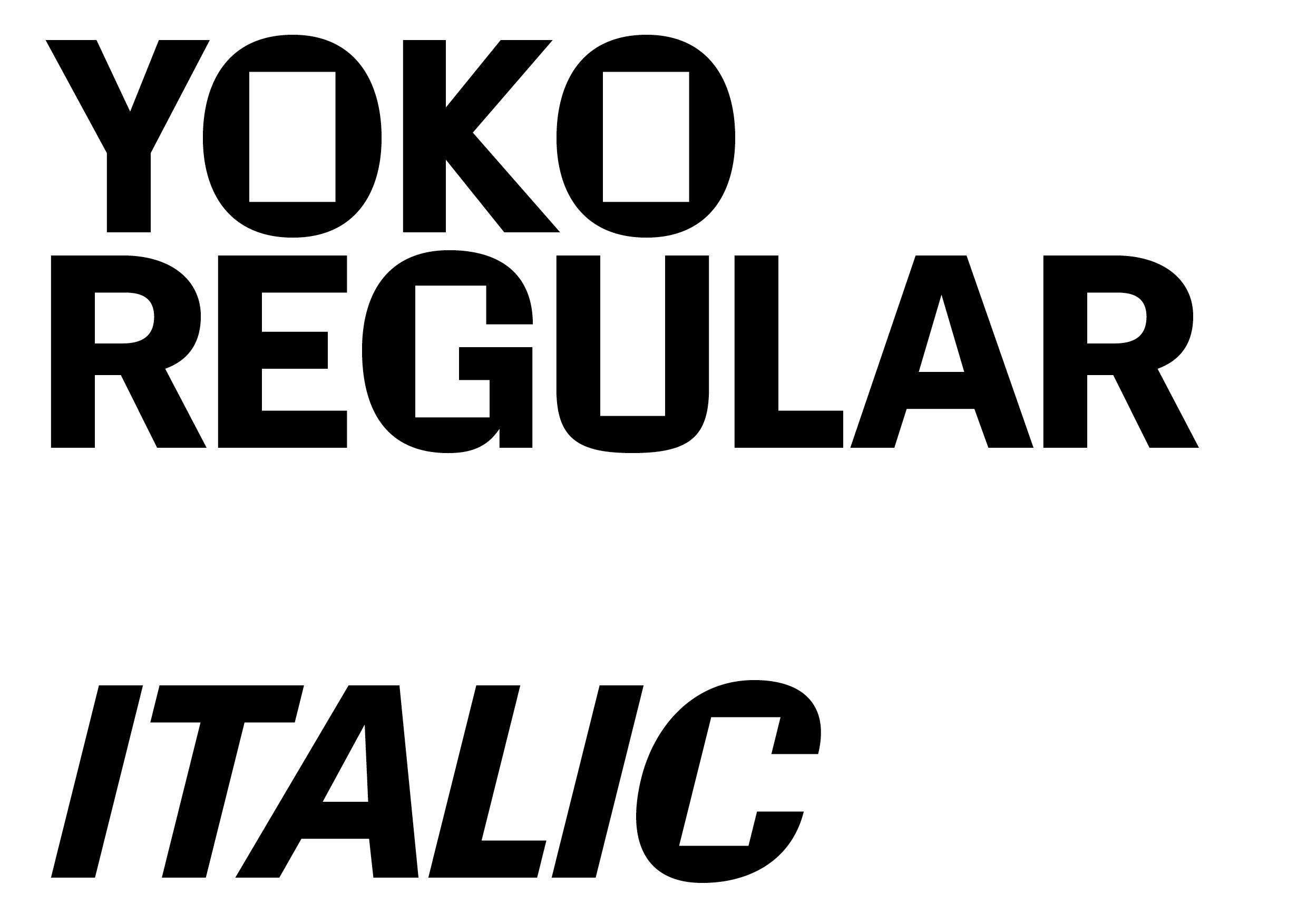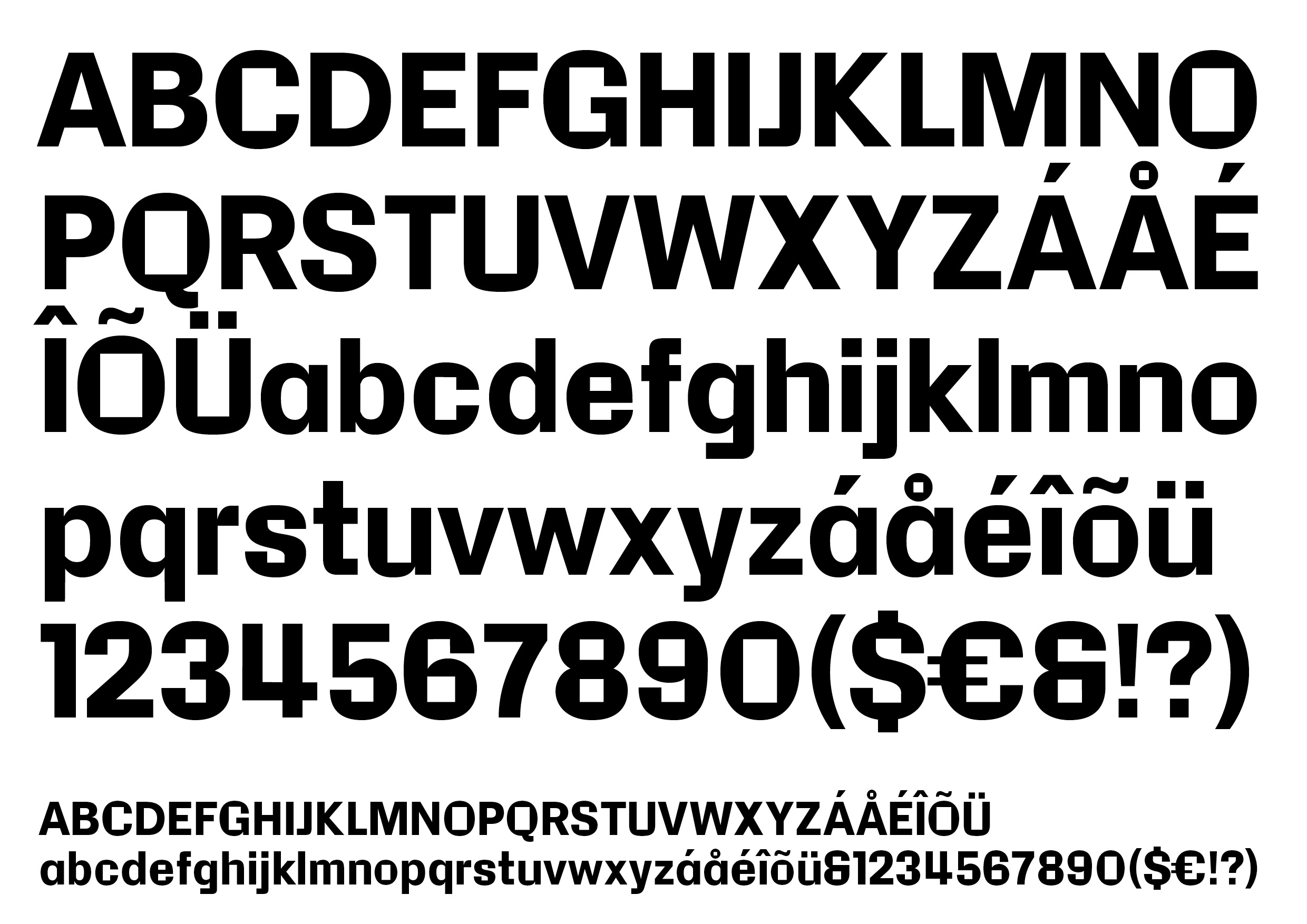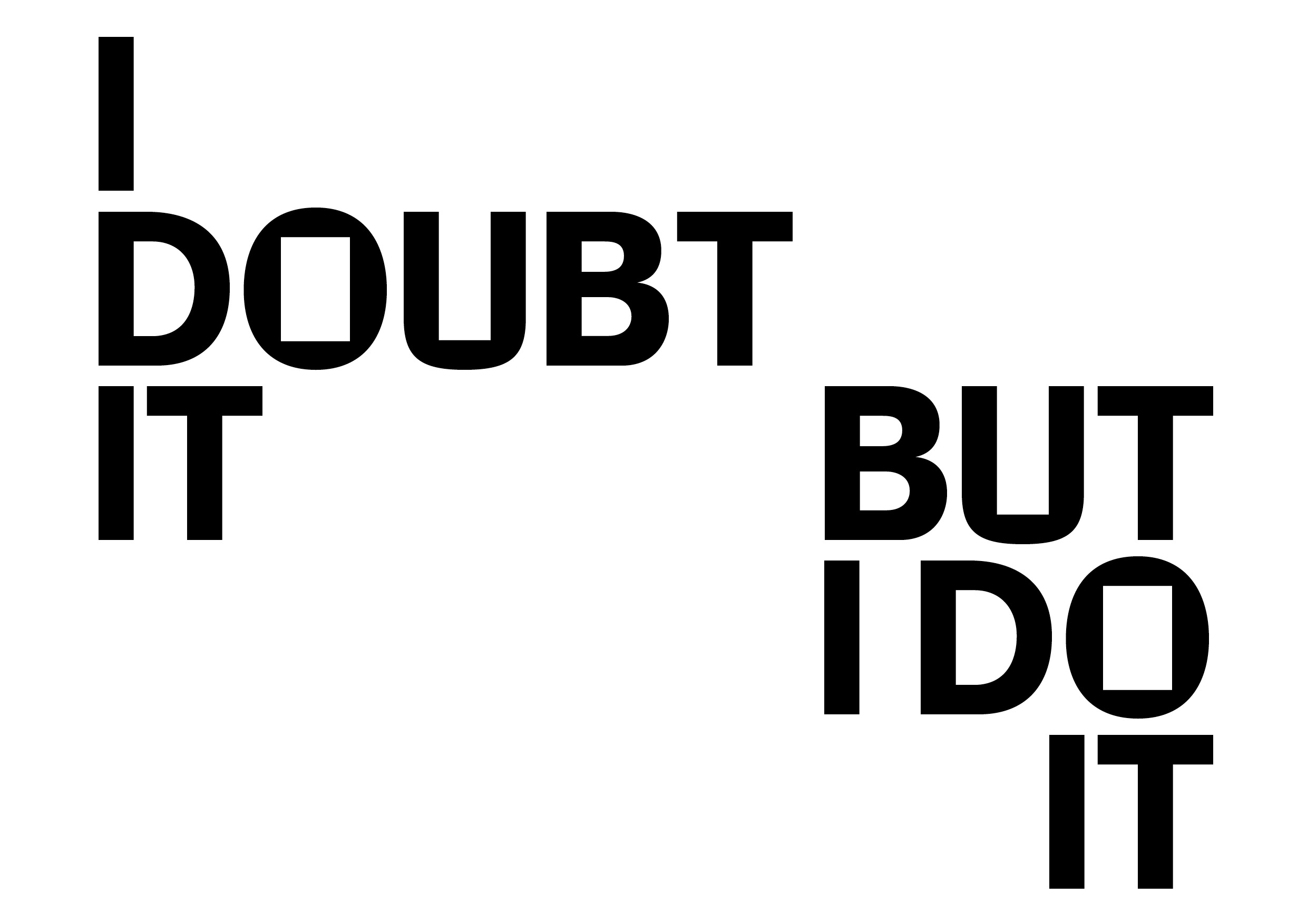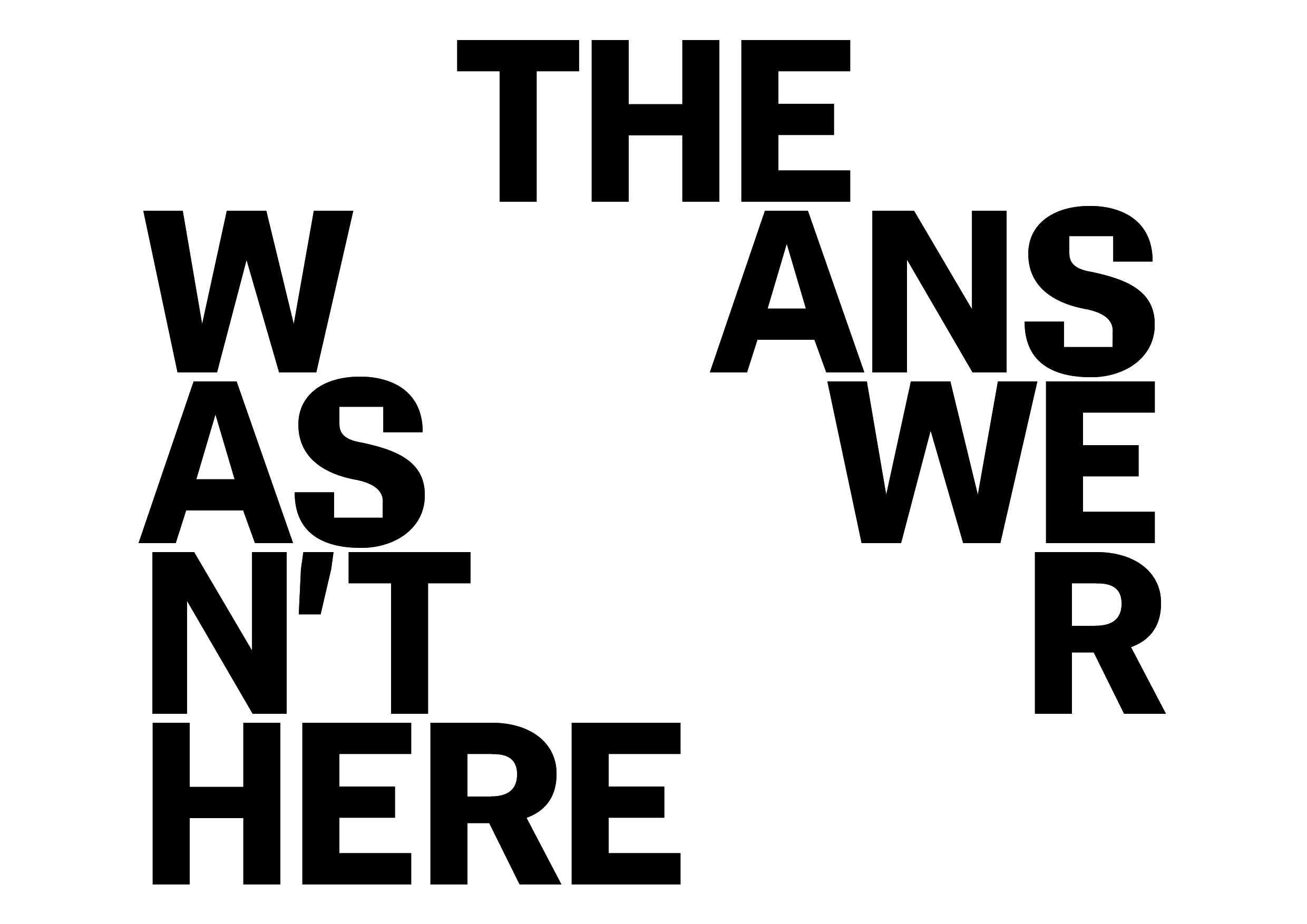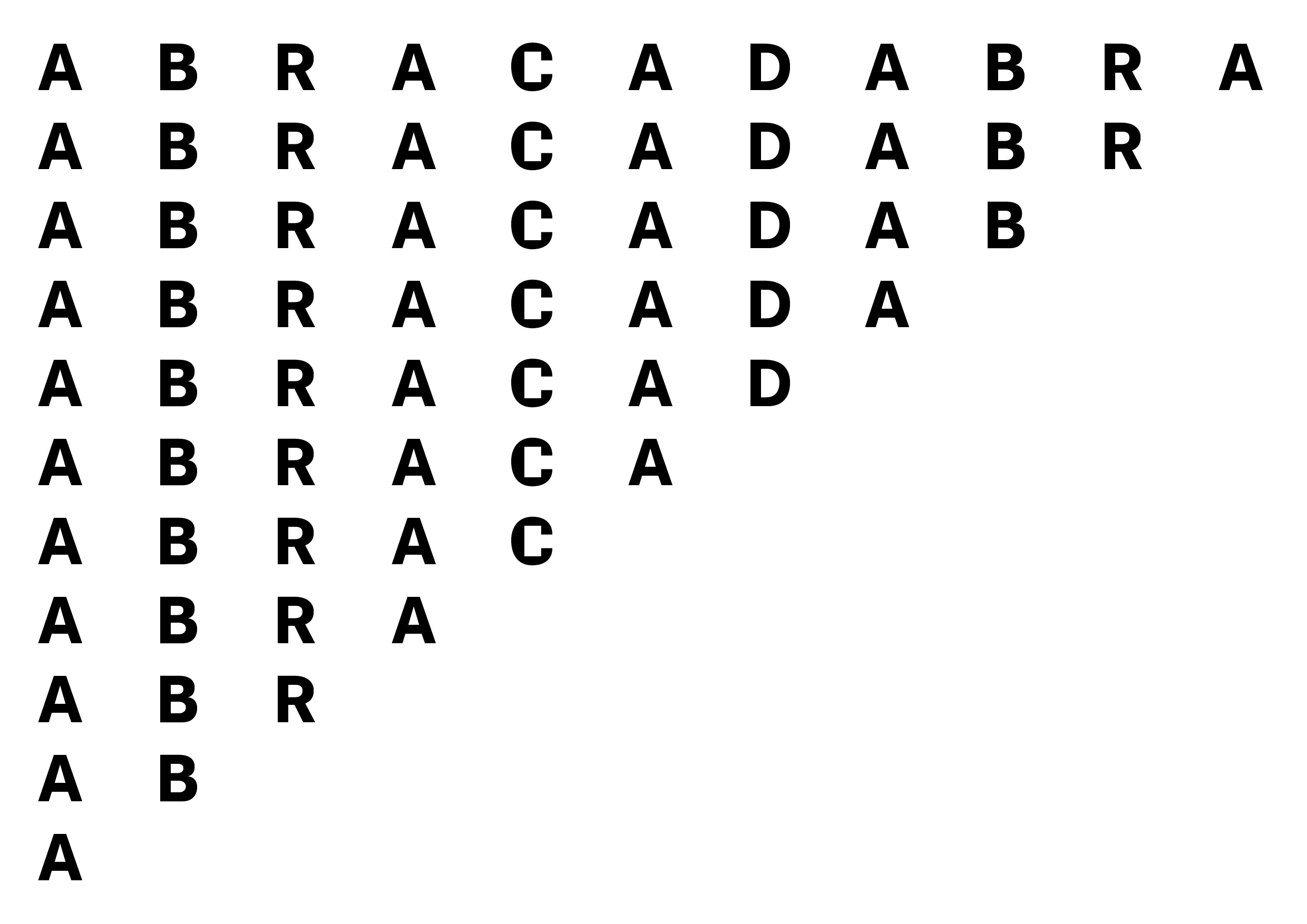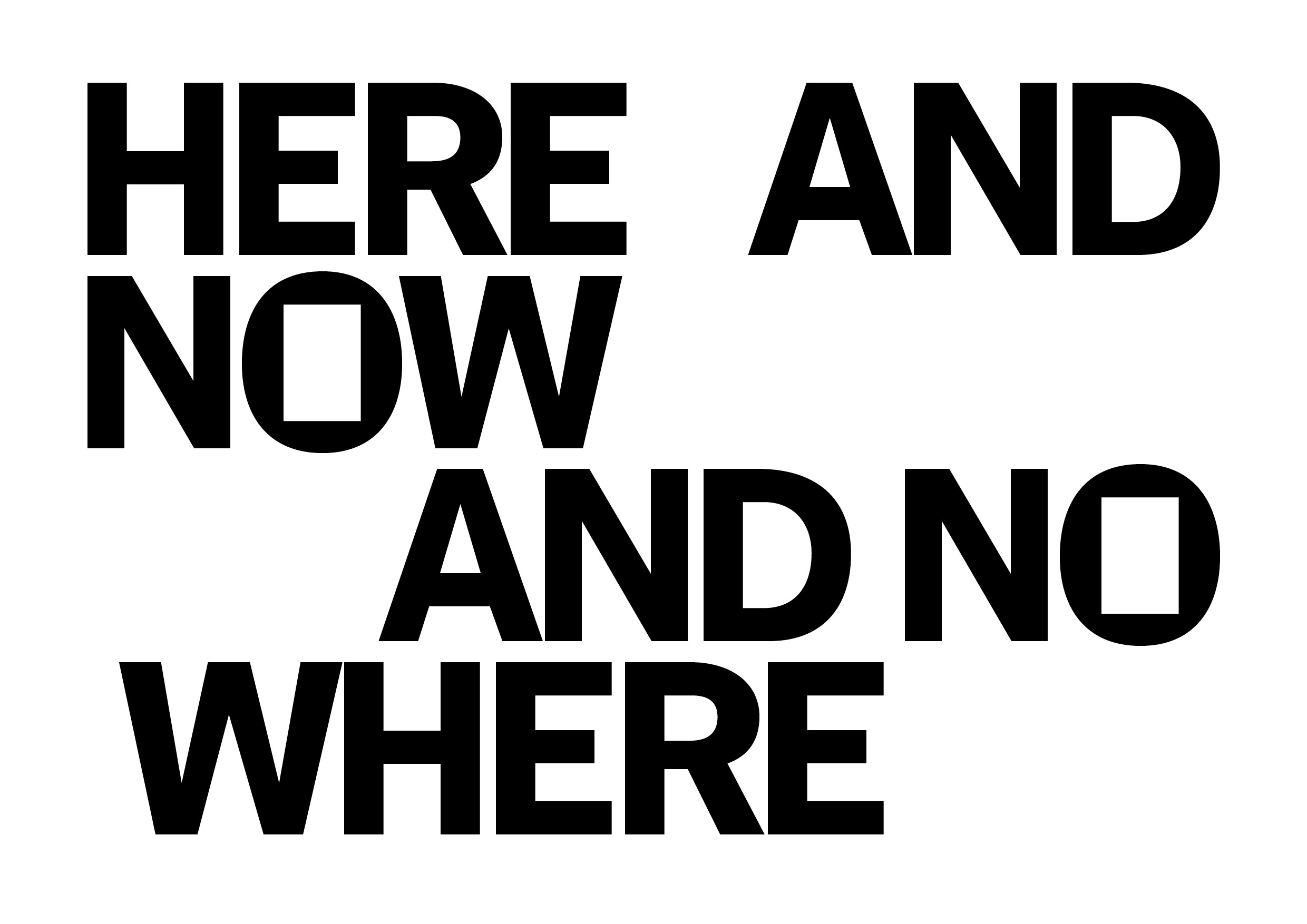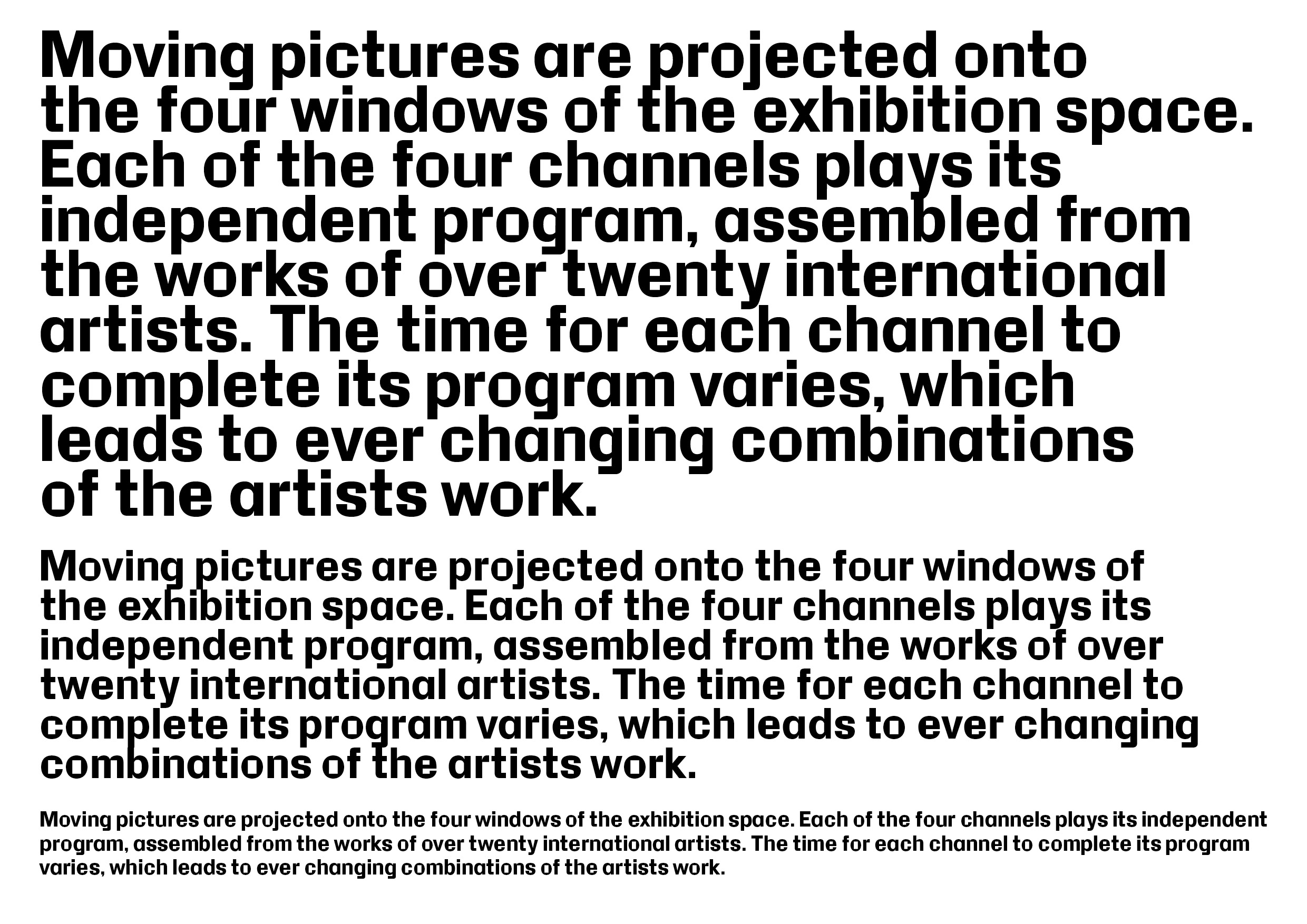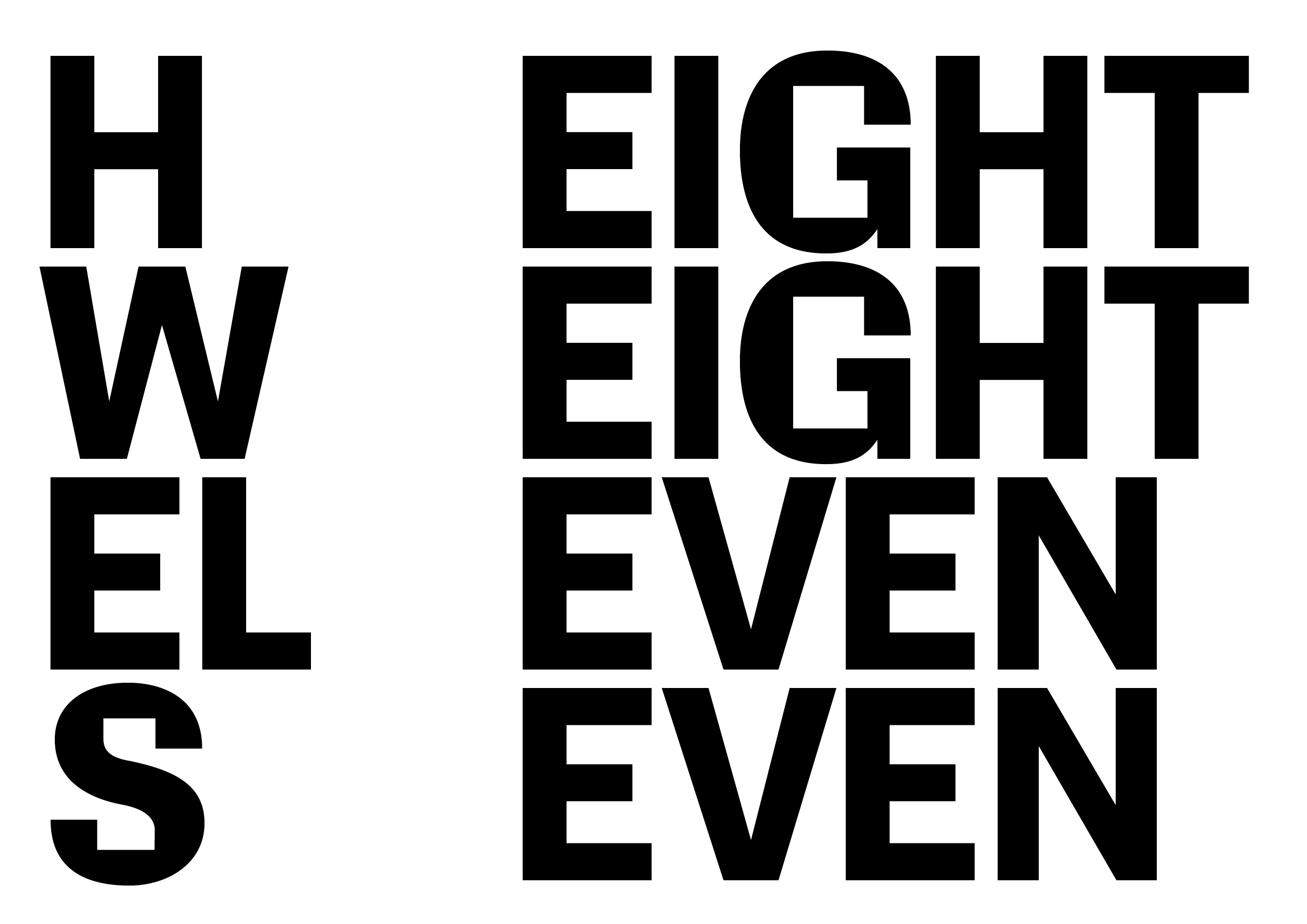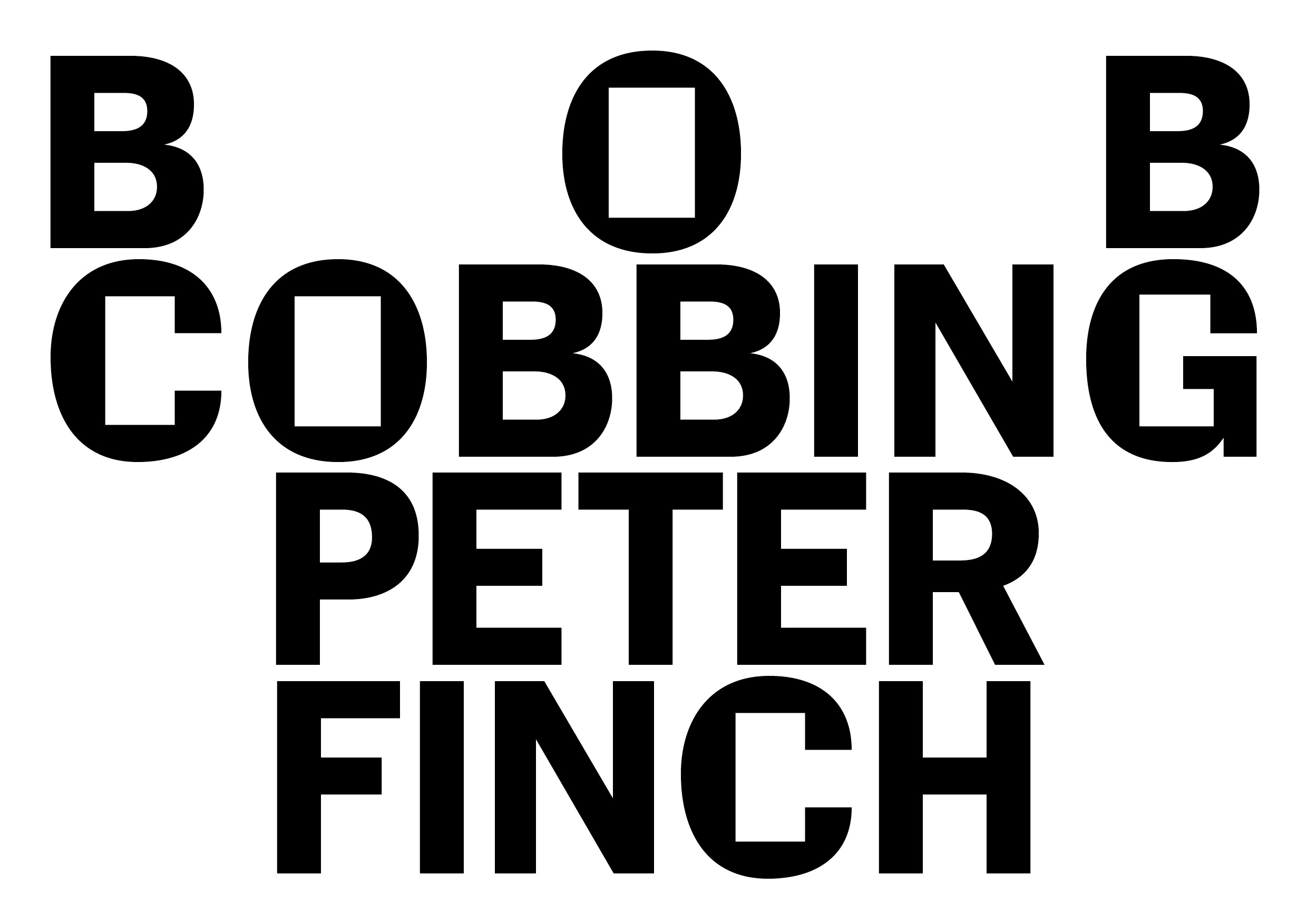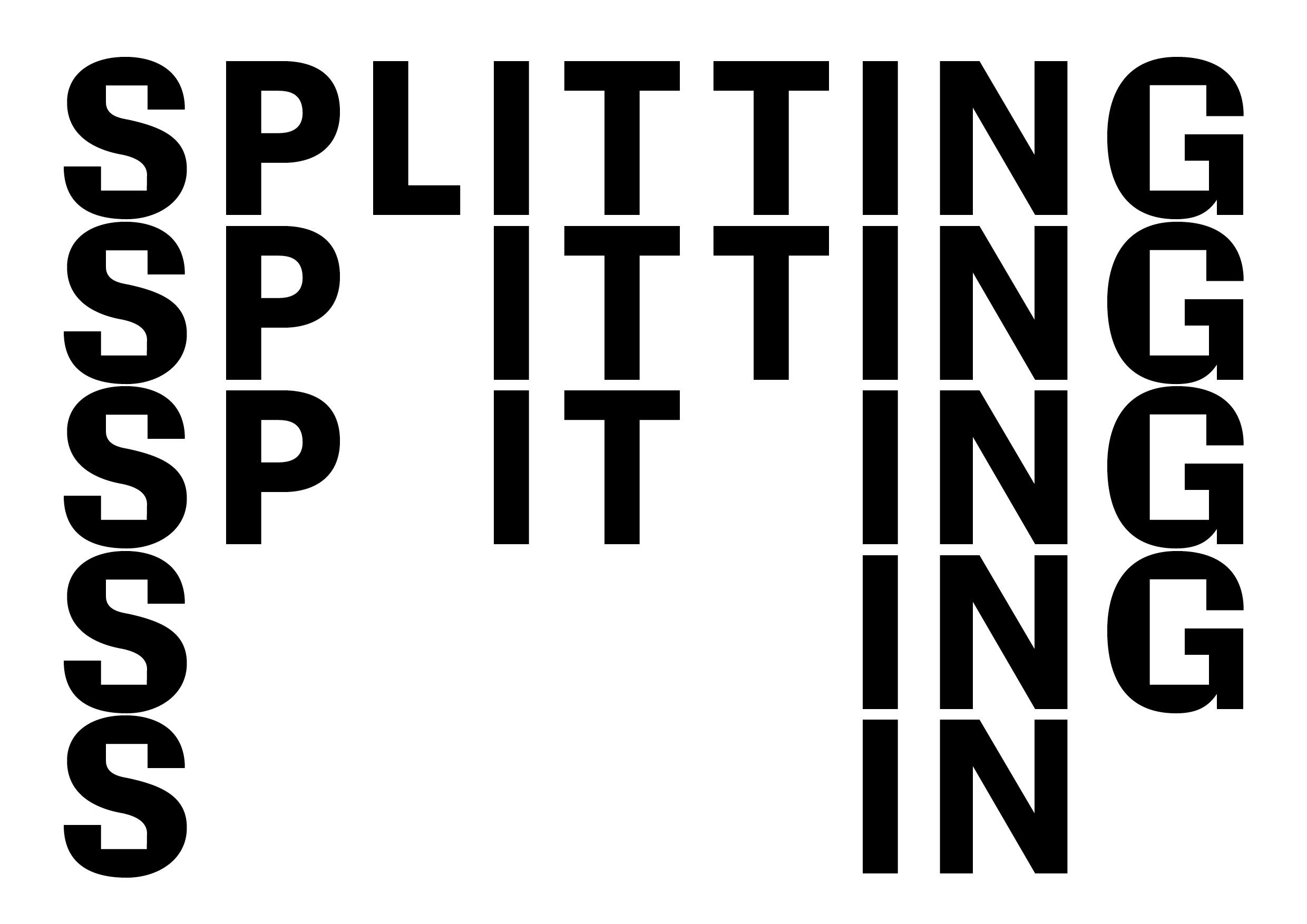
Yoko
Write LOVE fifty times and eventually it stops being a word. It becomes four shapes. Then a pattern. Maybe a picture. Yoko began with the poetic work of Yoko Ono and the visual language of concrete poetry where letters themselves become material for making ideas. Its monospaced structure gives every character the same amount of space while square brush-like shapes create a rhythm across the page. Write a sentence. Write one word very large. Repeat it until it becomes something else. Yoko can be read like a typeface but it was made to be played with like an image.